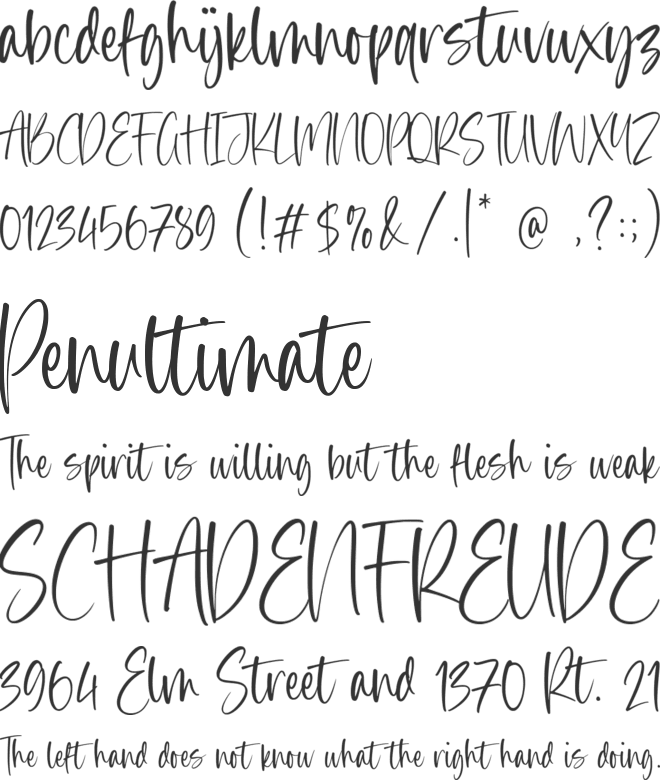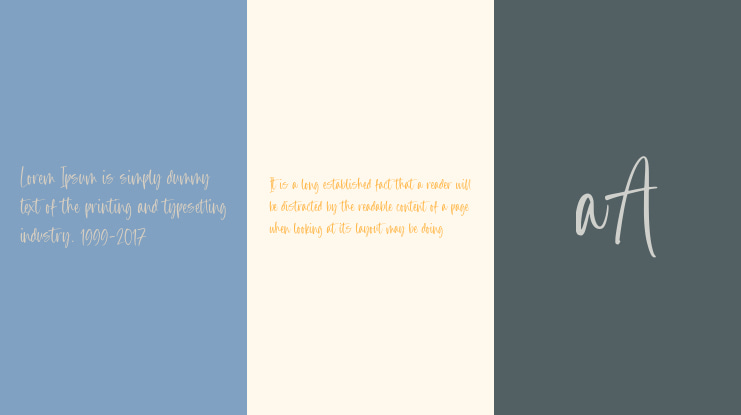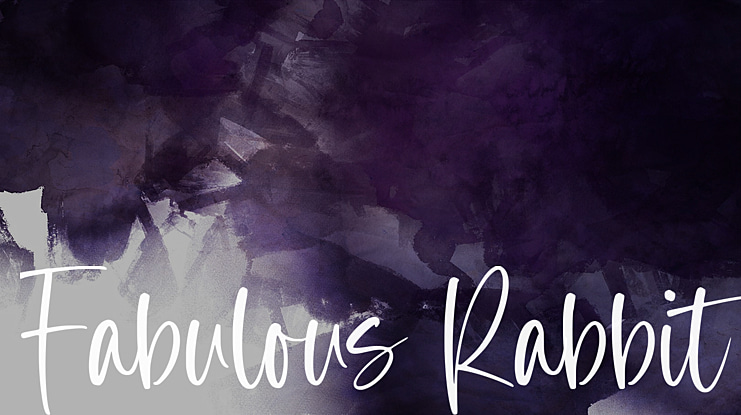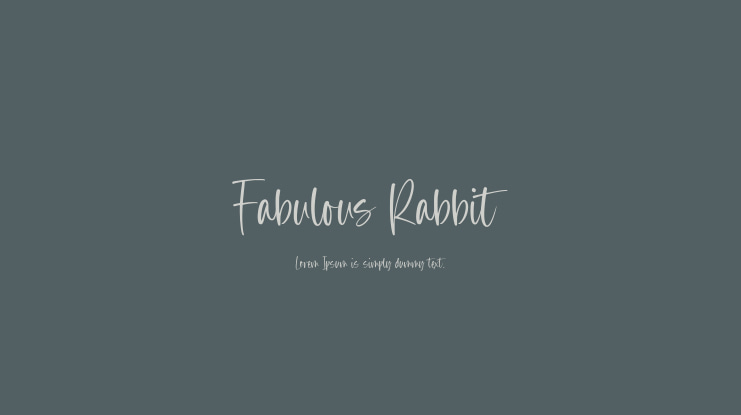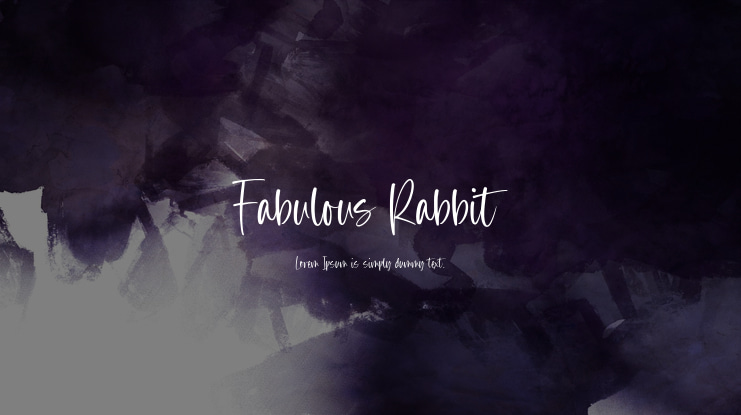
Fabulous Rabbit Font
Introducing by Balpirick Studio.
Proudly Present, Fabulous Rabbit Font.
Fabulous Rabbit is a Handbrushed Script Font.
Fabulous Rabbit is a cute and slim handwritten font. Whatever the topic, this font will be a wonderful asset to your font library, as it has the potential to enhance any creation.